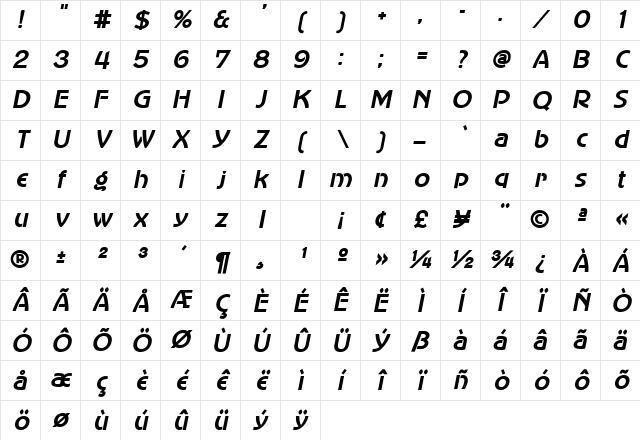
Advertiser Bold-Oblique
Style: Bold-Oblique
Complete Advertiser Bold-Oblique glyph index. Displaying only characters natively supported by Advertiser Bold-Oblique font.
Design Context for Advertiser
Advertiser is a composed and adaptable typeface that performs quietly and consistently across a wide range of design contexts. The slanted form adds forward momentum and visual energy. Its bold stroke weight gives it real presence on the page.
Pro Tip: Use Advertiser for emphasis, pull quotes, and subheadings where its slanted energy can add rhythm to the layout.